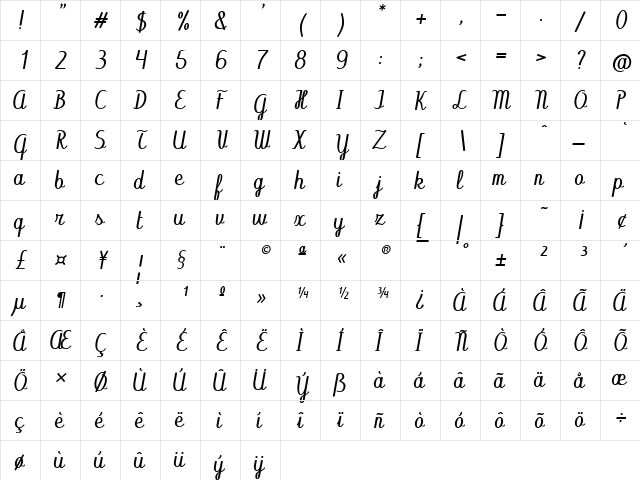
Abecedary Italic Italic
| Foundry | Yves Michel |
| Designer | Yves Michel |
Design Context for Abecedary Italic Typeface
Abecedary Italic takes a measured approach to typography — its balanced proportions and neutral character make it a reliable workhorse for both digital and print work. The slanted form adds forward momentum and visual energy.